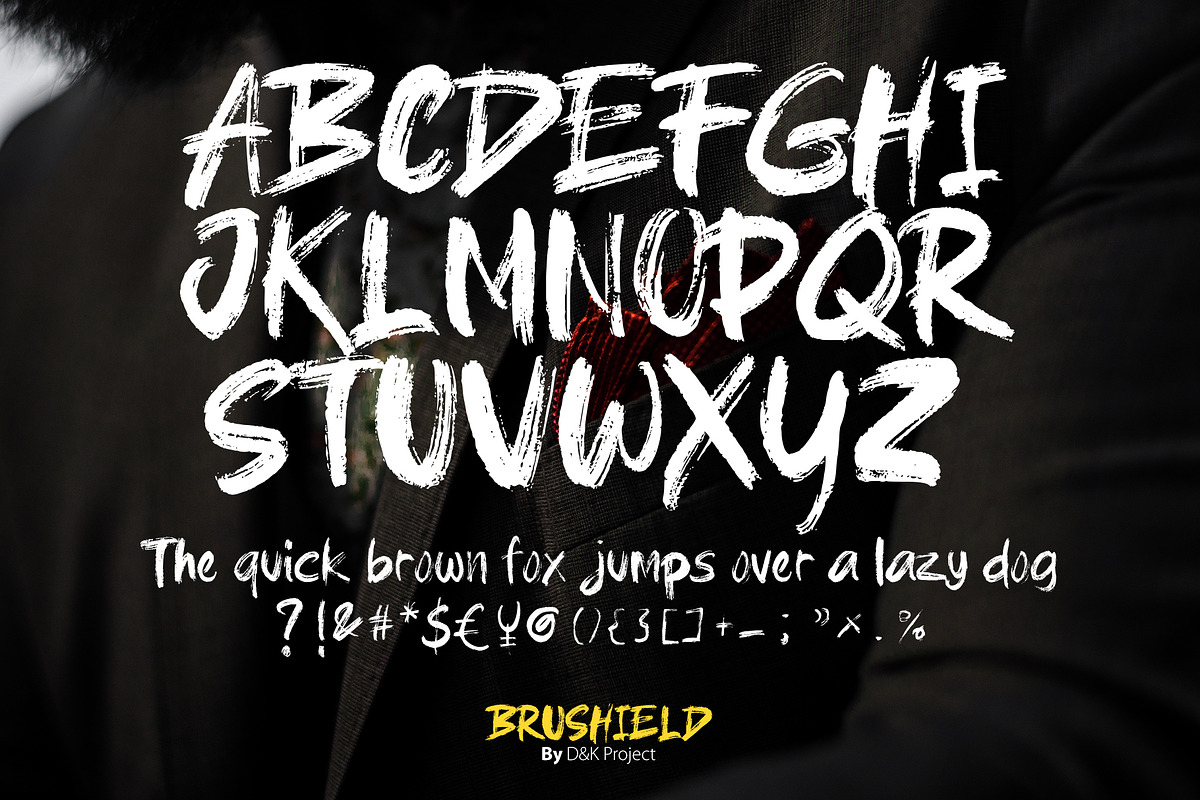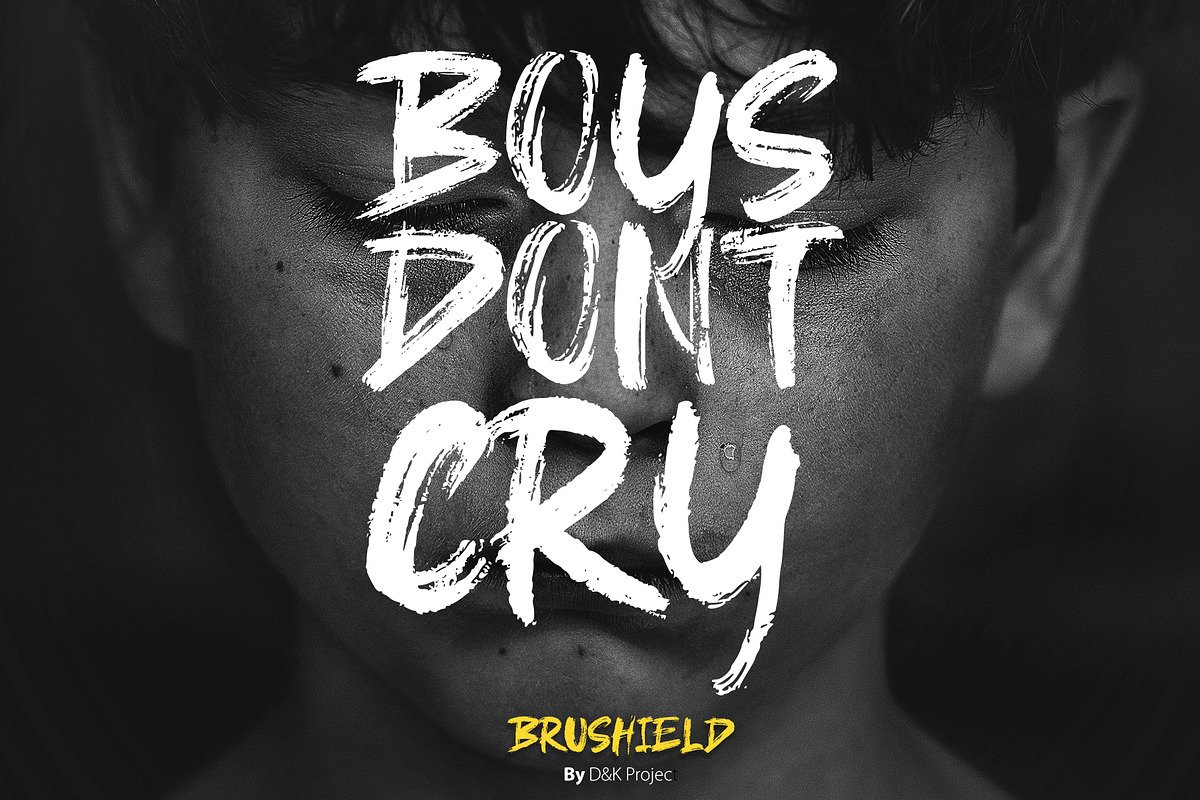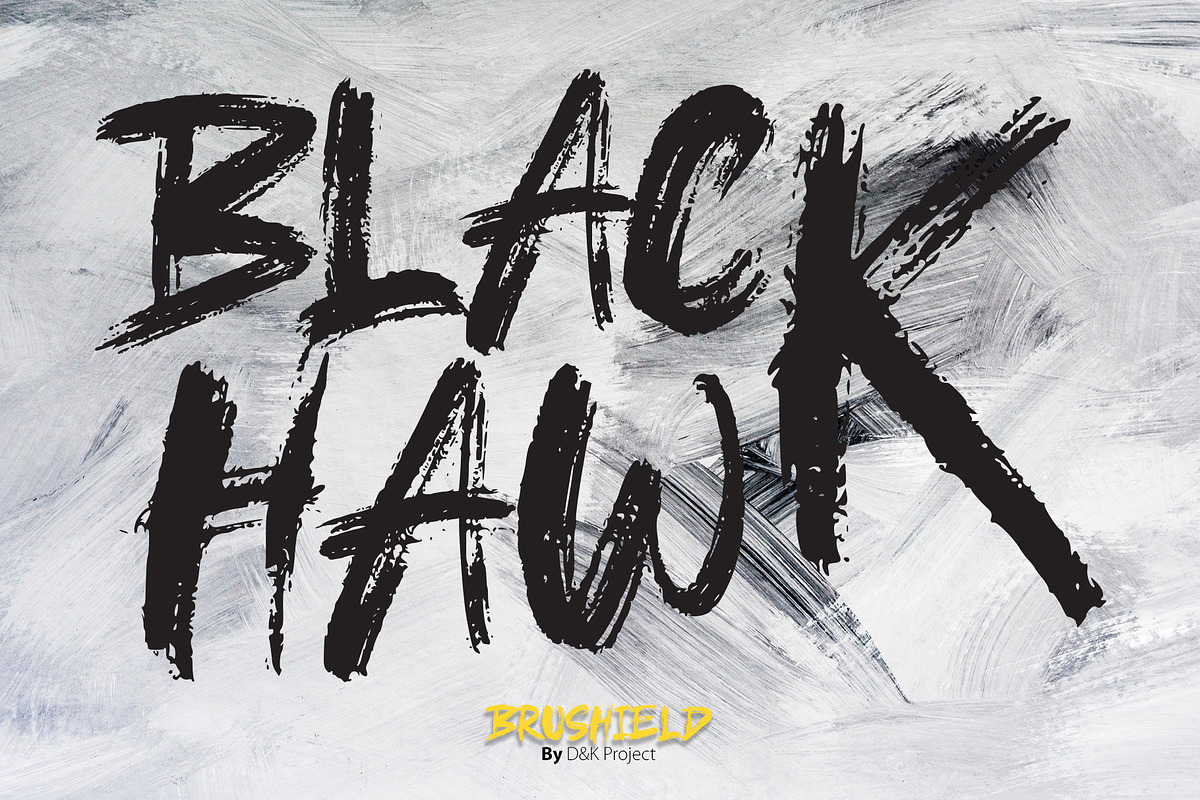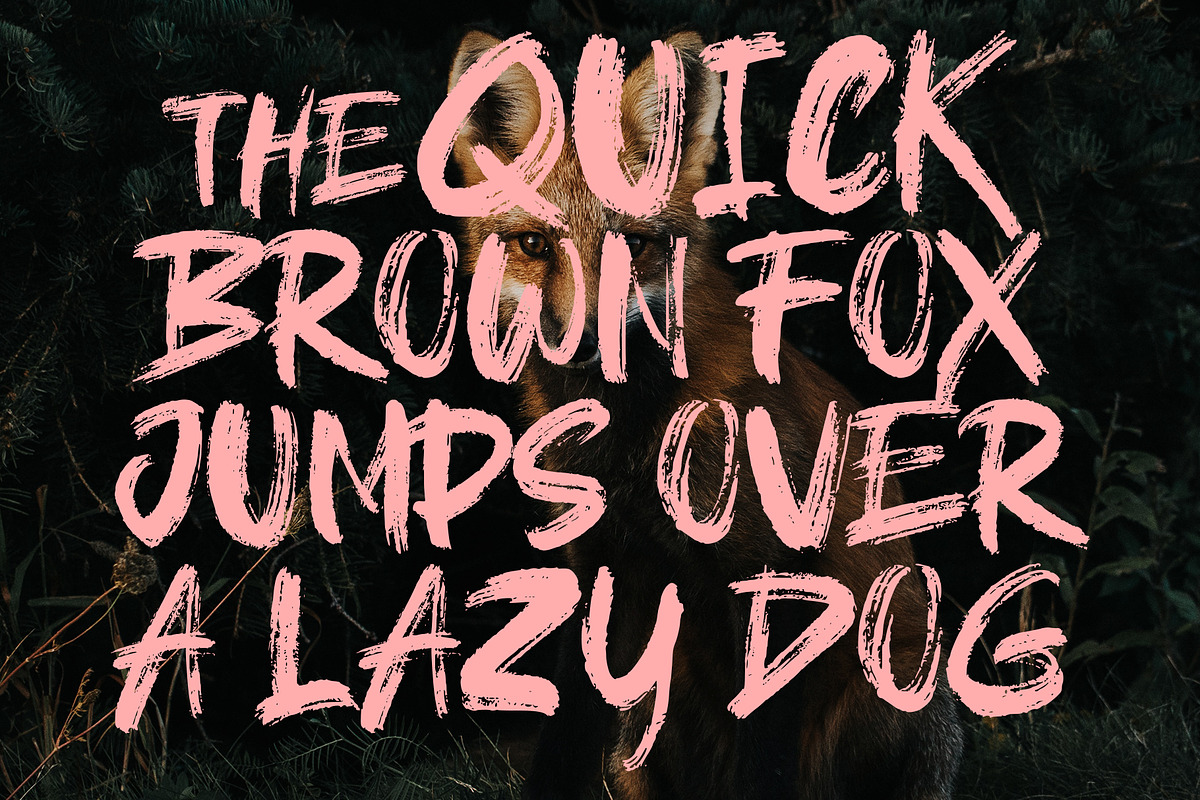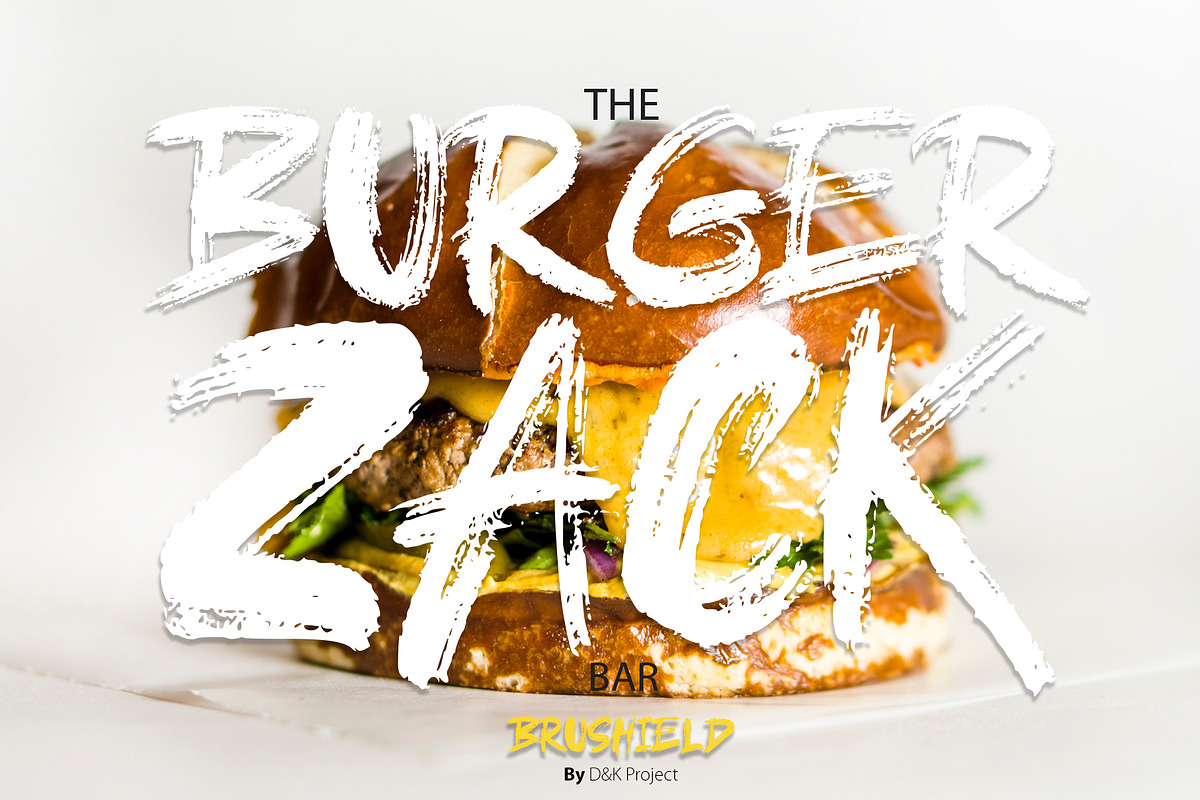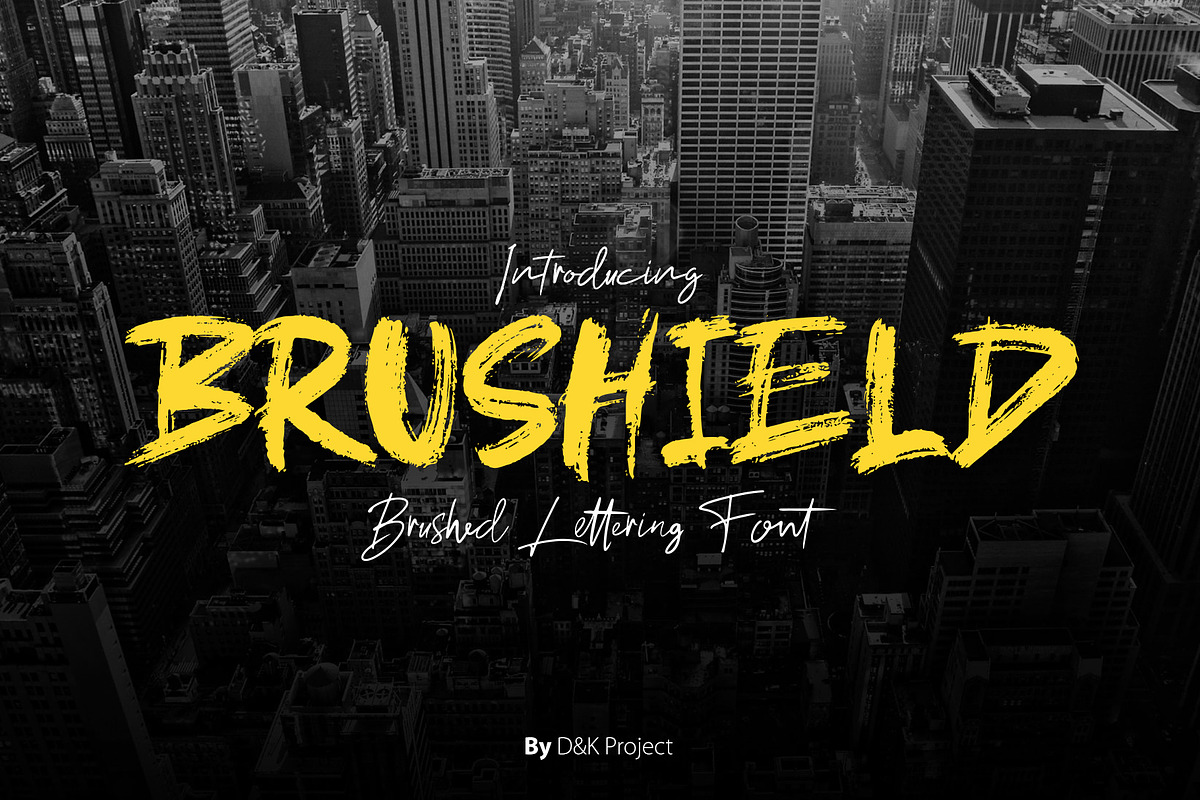
Brushield | Handwritten brush font
Brushield is brushes font basic from brushpen, is UNIQUE and very powerfull. Brushield is perfect for logotype, poster, and many other vintage or modern project.
UPPERCASE and lowercase
Panctuation and numeral
Brushield | Handwritten brush font by D&K Project fits naturally into Branding, posters, packaging, typography.